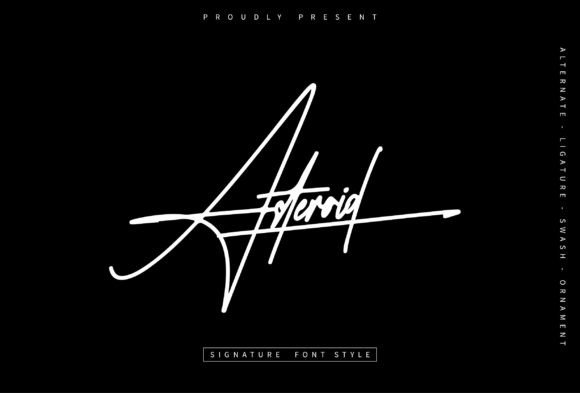
Dive into a world where sophistication and charm collide, introducing Asteroid Font, the epitome of elegance and modernity. This captivating script font, brought to life by the creative minds at Ryan Creative, is a symphony of smooth and fluid lines that evoke a sense of motion and grace.
With its carefully crafted curves and flourishes, Asteroid Font exudes a contemporary feel, making it the perfect choice for invitations, branding, and all your creative endeavors. Prepare to be mesmerized as this font adds a touch of enchantment to your designs, leaving a lasting impression on all who behold it.
Embark on a creative journey with Asteroid Font, where your imagination takes center stage. Its versatility knows no bounds, transforming your words into works of art, whether you're crafting elegant invitations, designing eye-catching logos, or creating stunning social media posts.
Unleash your creativity and let Asteroid Font guide you through a world of boundless possibilities. Its PUA encoding opens up a treasure trove of glyphs and swashes, granting you the freedom to explore endless design variations.
Embrace the beauty of Asteroid Font and let its charm captivate your audience. Its timeless appeal and modern aesthetic will elevate your designs to new heights, leaving an everlasting impact on all who encounter them.